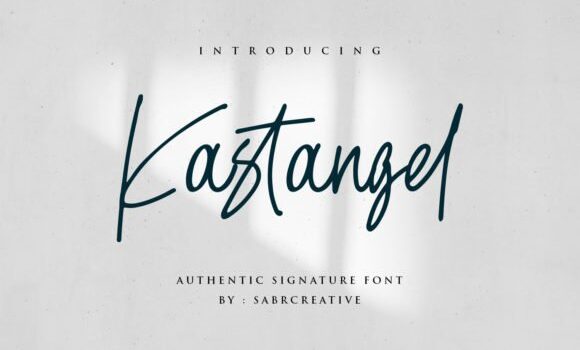
kastangel
Kastangel Font – Free Download Introduction to Kastangel Font Kastangel is a light and casual script with a timeless look. 📸 Preview Gallery 6 images 📌 Product Name Kastangel Font 👤 Author sabrcreative 📂 Category Explore ⬇️ Download Kastangel Font